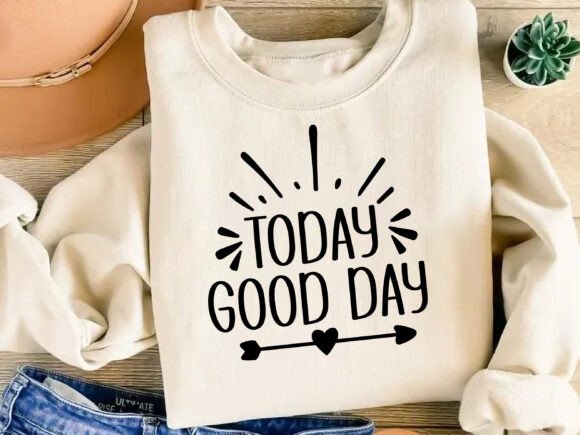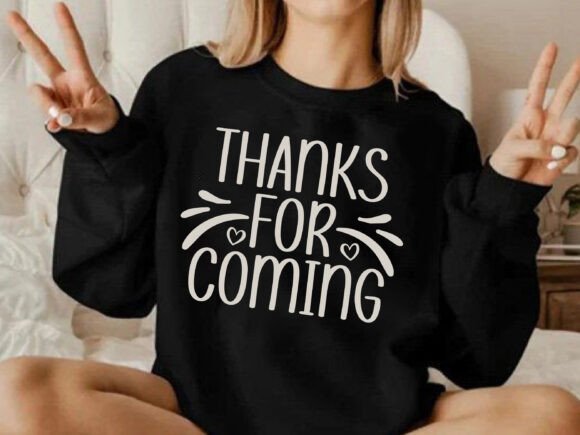
The Joy of Brown Smilen: A Playful Font for Creative Projects
I’ll never forget the time I was working on a project for a client’s children’s book. I had spent hours pouring over the illustrations, but the text just didn’t feel right. The font I was using was too formal, too stiff, and it completely sucked the fun out of the story. I knew I needed something playful, something that would bring a smile to a child’s face. That’s when I stumbled upon Brown Smilen, and it was love at first sight! 💕
A Personal Review of Brown Smilen
So, what makes Brown Smilen so special? Let’s dive into the good stuff! 😊
• ✨ Playful and friendly: Brown Smilen has a casual, handwritten style that’s perfect for adding a personal touch to your designs.
• ✅ Easy to read: Despite its playful nature, Brown Smilen is surprisingly easy to read, even at smaller font sizes.
• 💬 Great for kids’ projects: The font’s cheerful personality makes it a great choice for children’s books, educational materials, and even craft projects.
Of course, no font is perfect, and Brown Smilen has a few quirks to be aware of:
• 🤔 Limited formal use: Brown Smilen is not suitable for formal documents or projects that require a more professional tone.
• ⚠️ Some letter variations: A few letters, like ‘Q’ and ‘q’, have slightly limited variations, which might be noticeable in certain contexts.
The Story Behind Brown Smilen
While the true origins of Brown Smilen might be a mystery, it’s easy to imagine a designer creating this font with a smile on their face. Perhaps they were inspired by the joy of childhood, the simplicity of handwriting, or the playfulness of street art. Whatever the story, Brown Smilen is a delightful font that’s sure to bring happiness to your designs.
What type of projects is Brown Smilen best suited for? Brown Smilen is perfect for creative projects that require a playful, friendly touch, such as children’s books, educational materials, craft projects, and social media graphics.